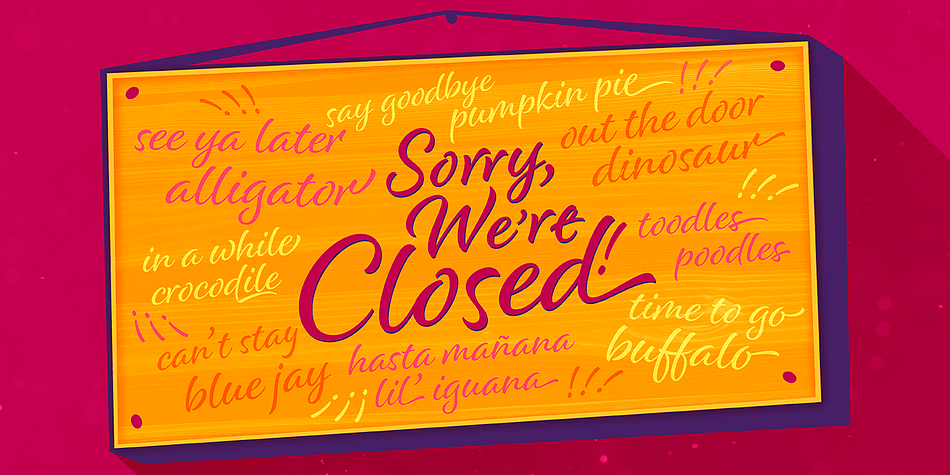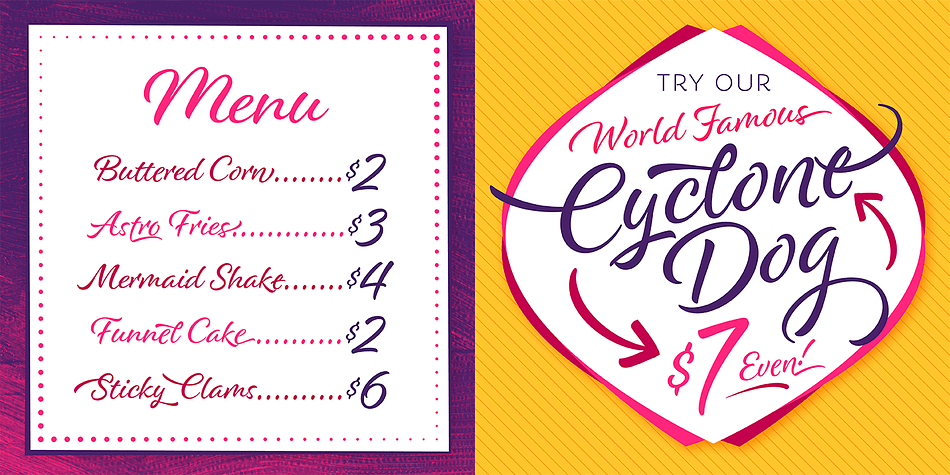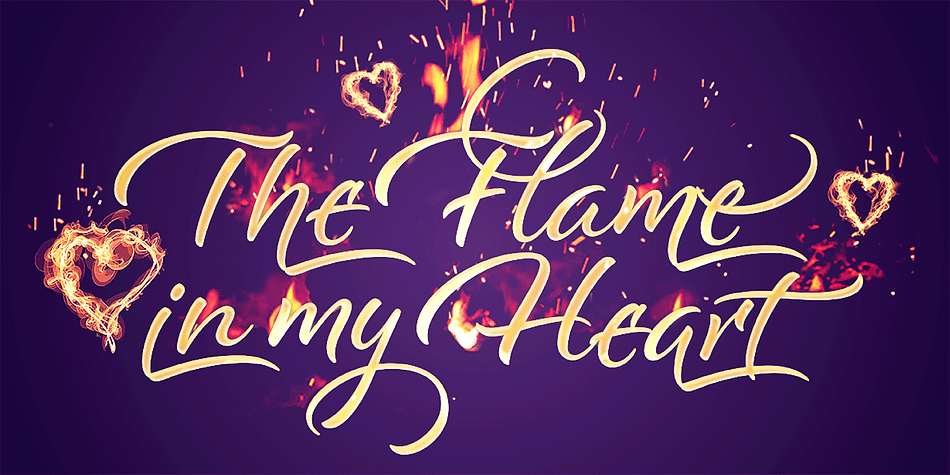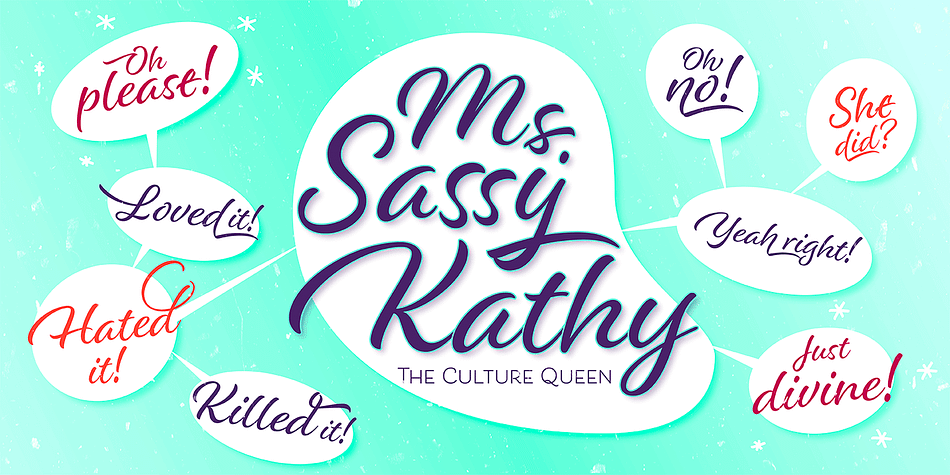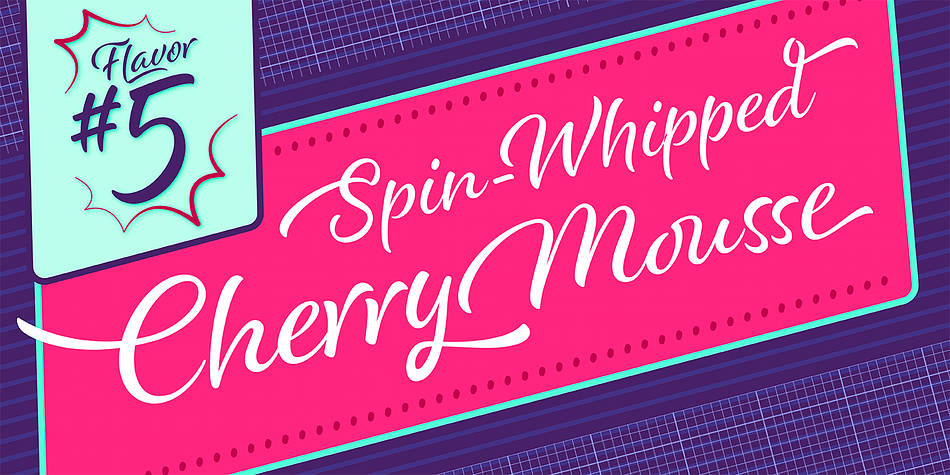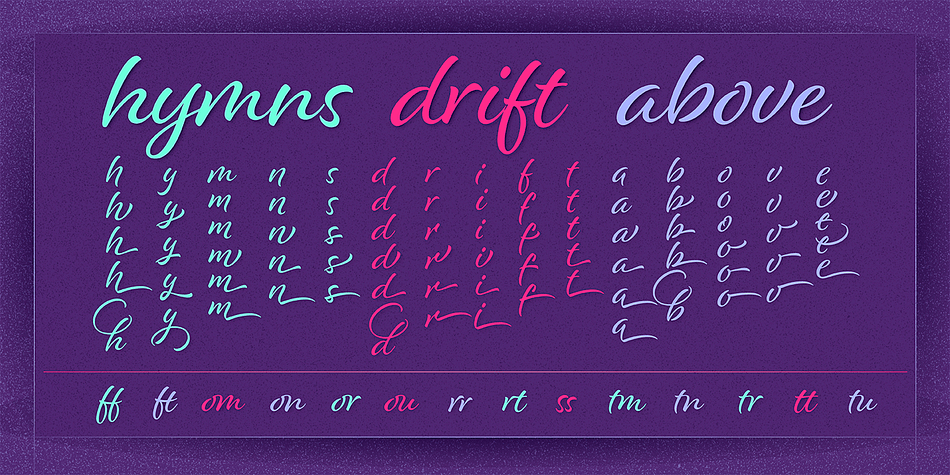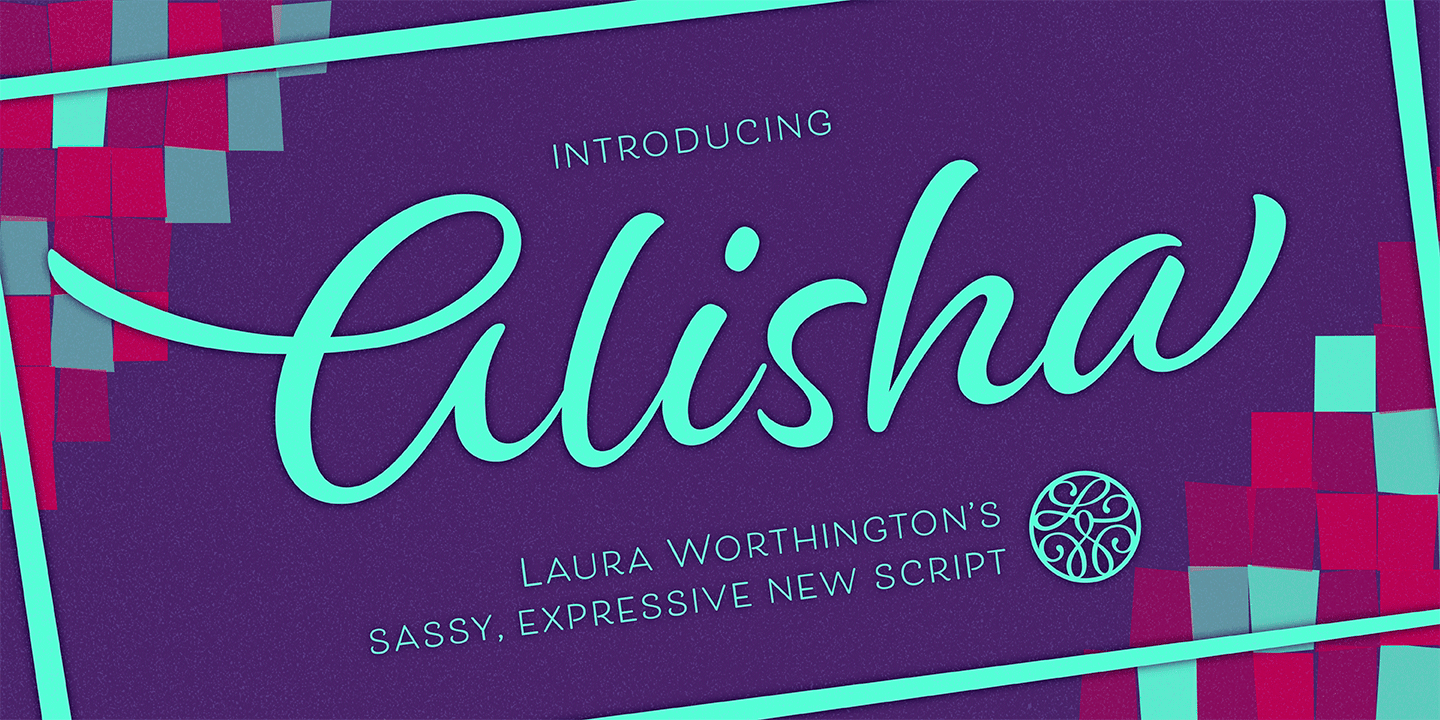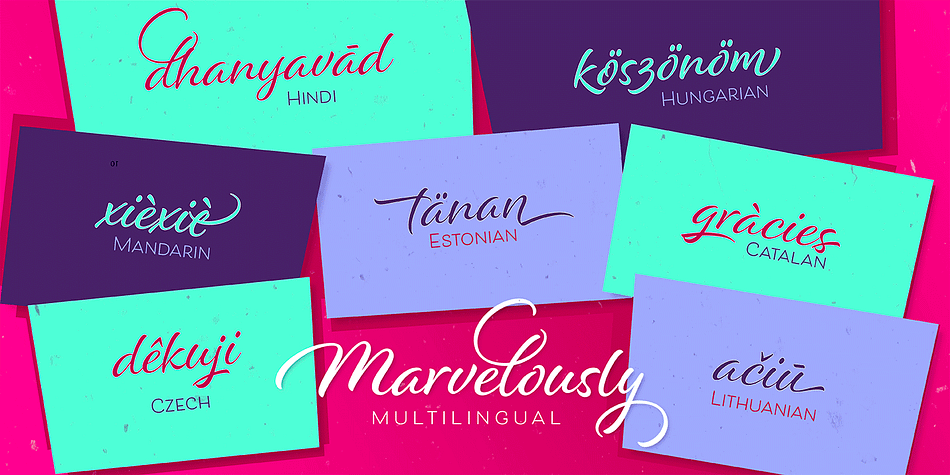
Designed by Laura Worthington, Alisha is a script font published by Laura Worthington.
Alisha is an expressive yet legible script face with a generous x-height and a equally generous complement of over 200 alternates and swash forms. Alisha retains the distinctive look of custom lettering with varied letterforms that are personable; yet polished and refined. Alisha is ideal for attracting buyers to product packaging, beckoning readers to headlines and hero graphics, or charming clients in identities and wordmarks.